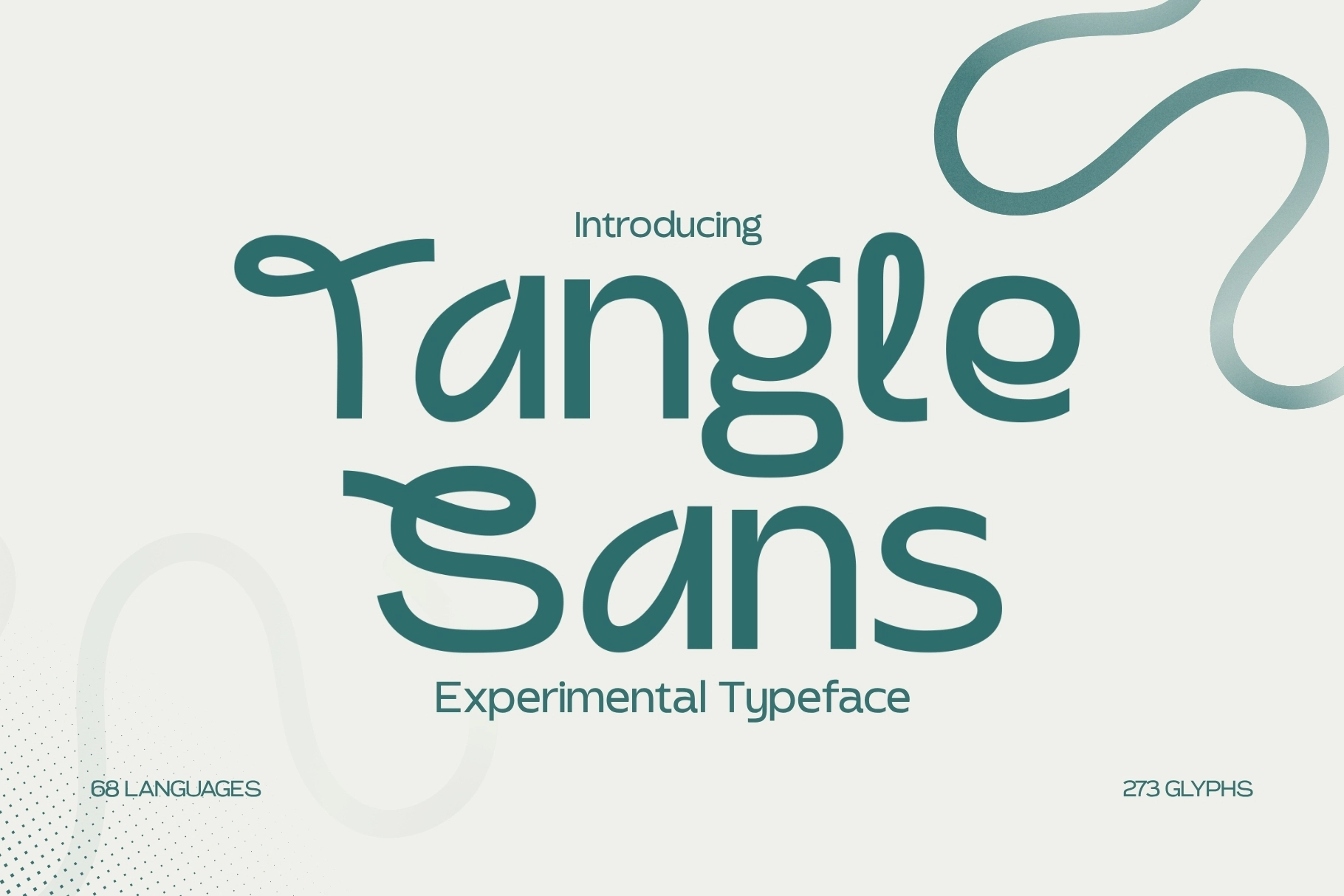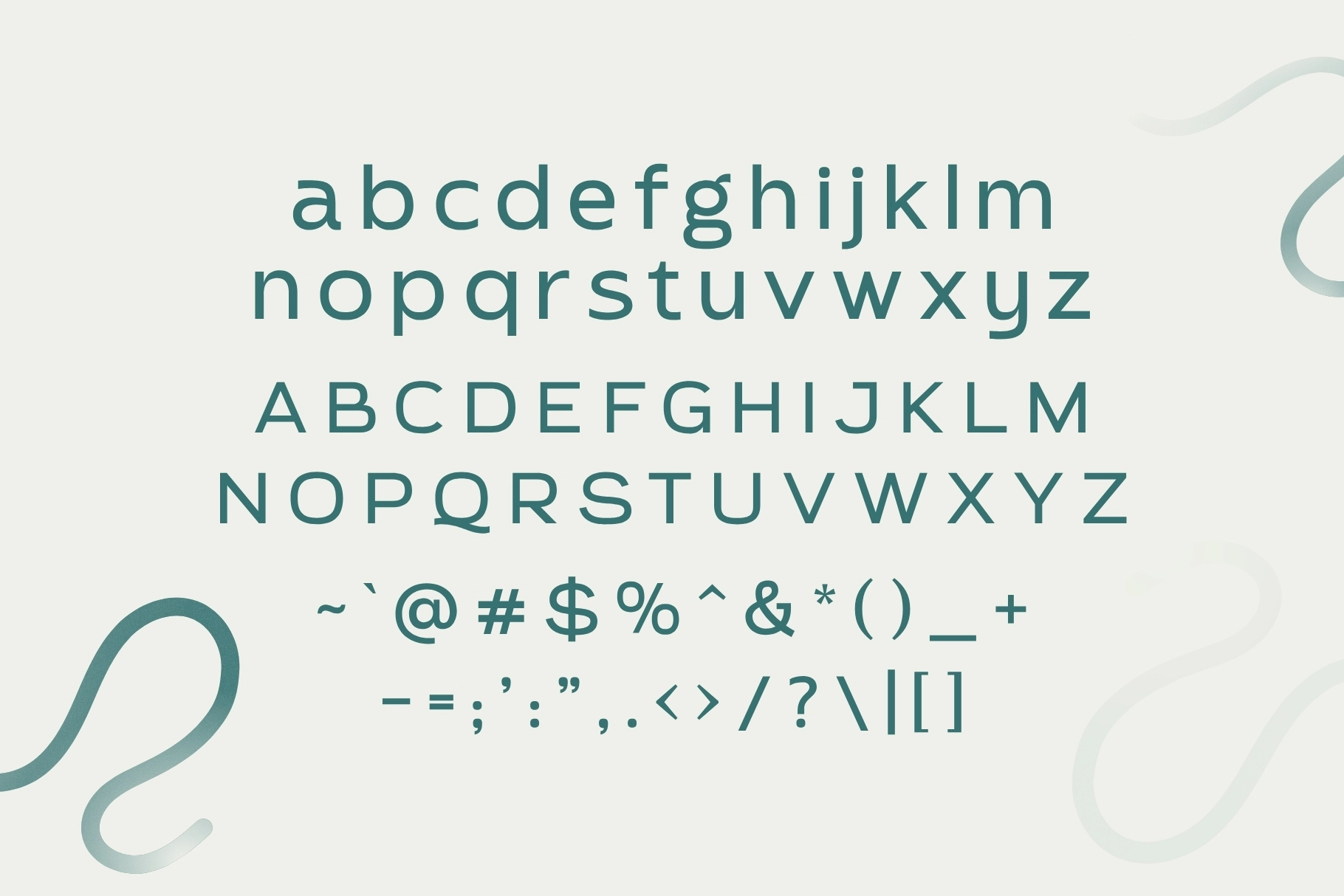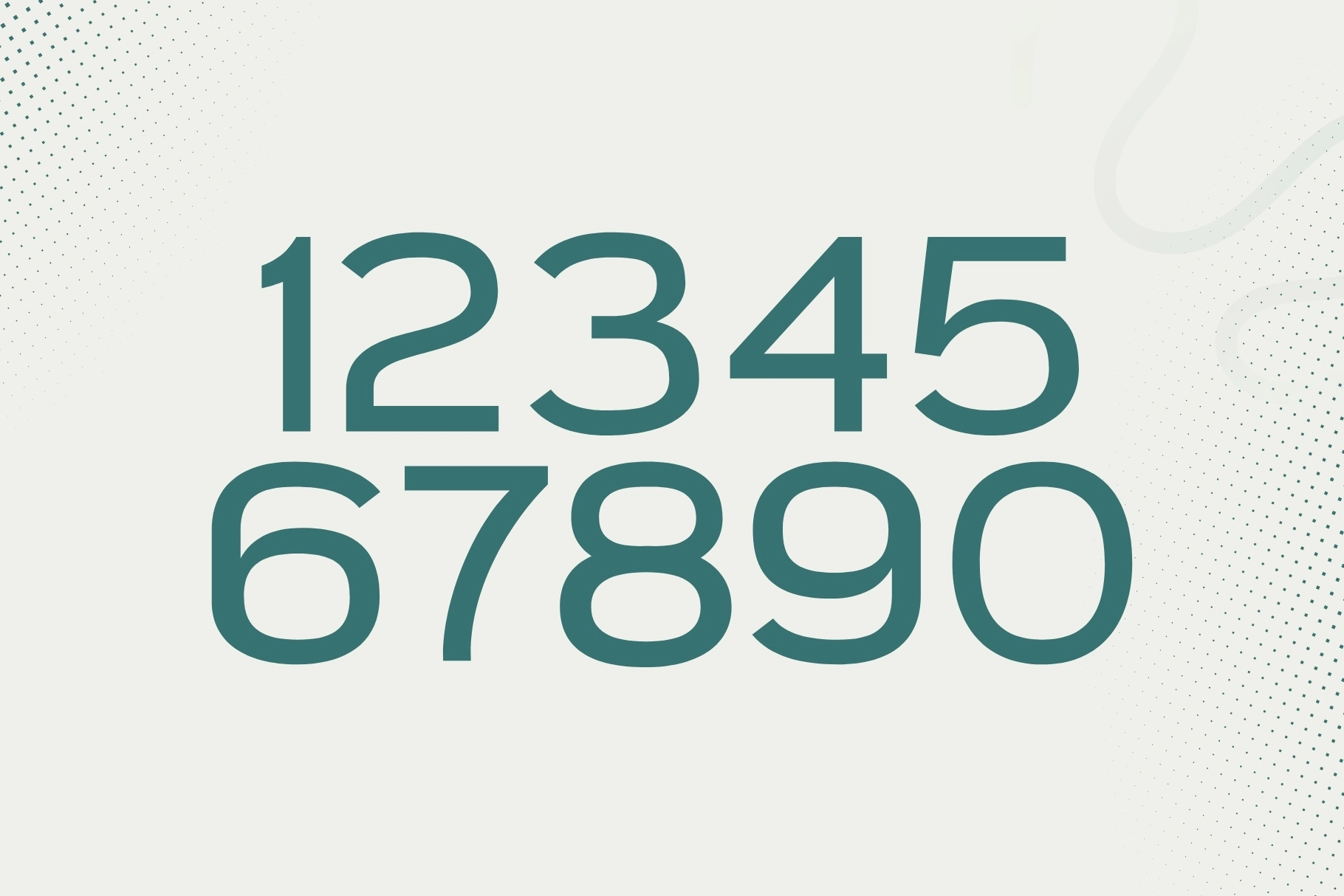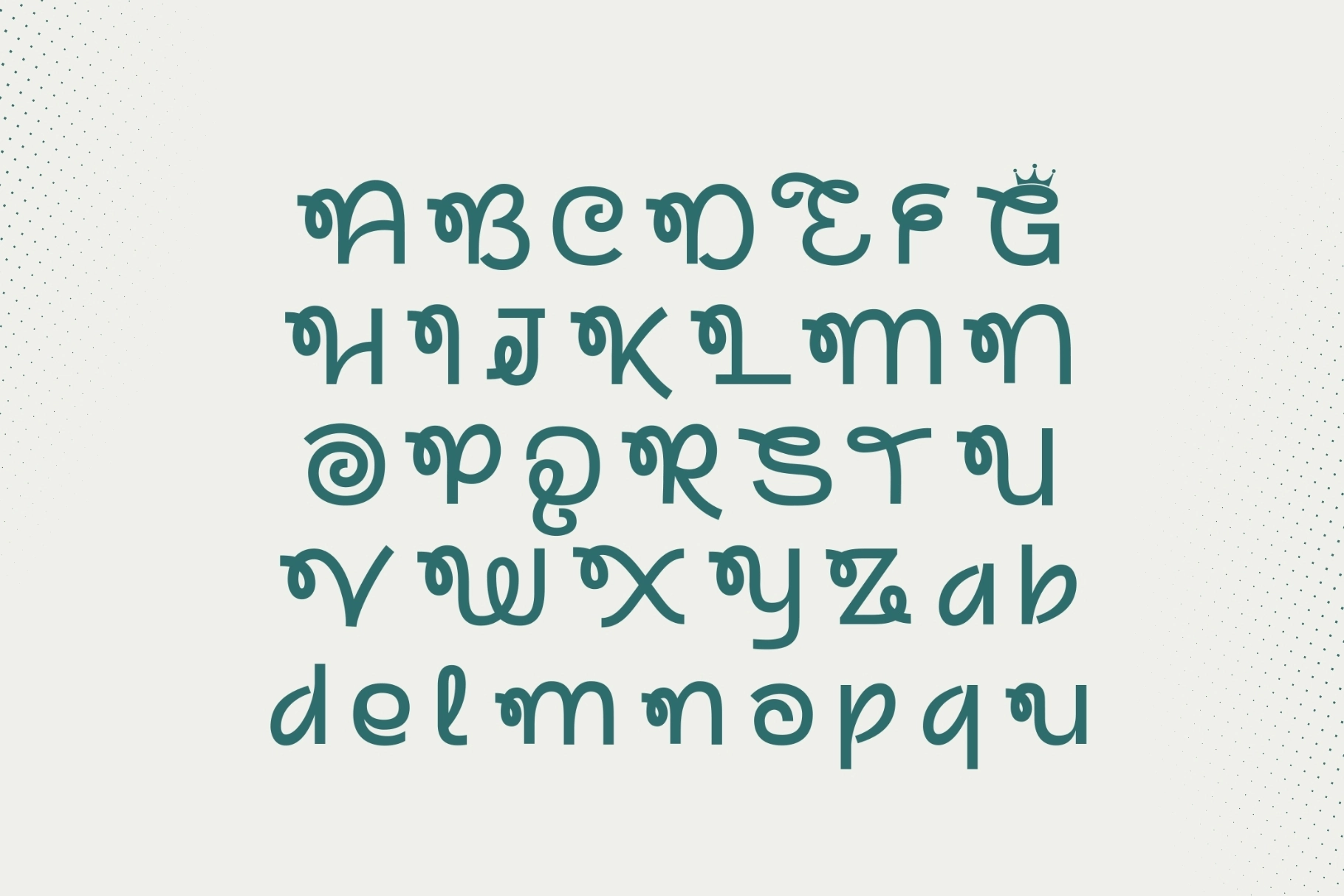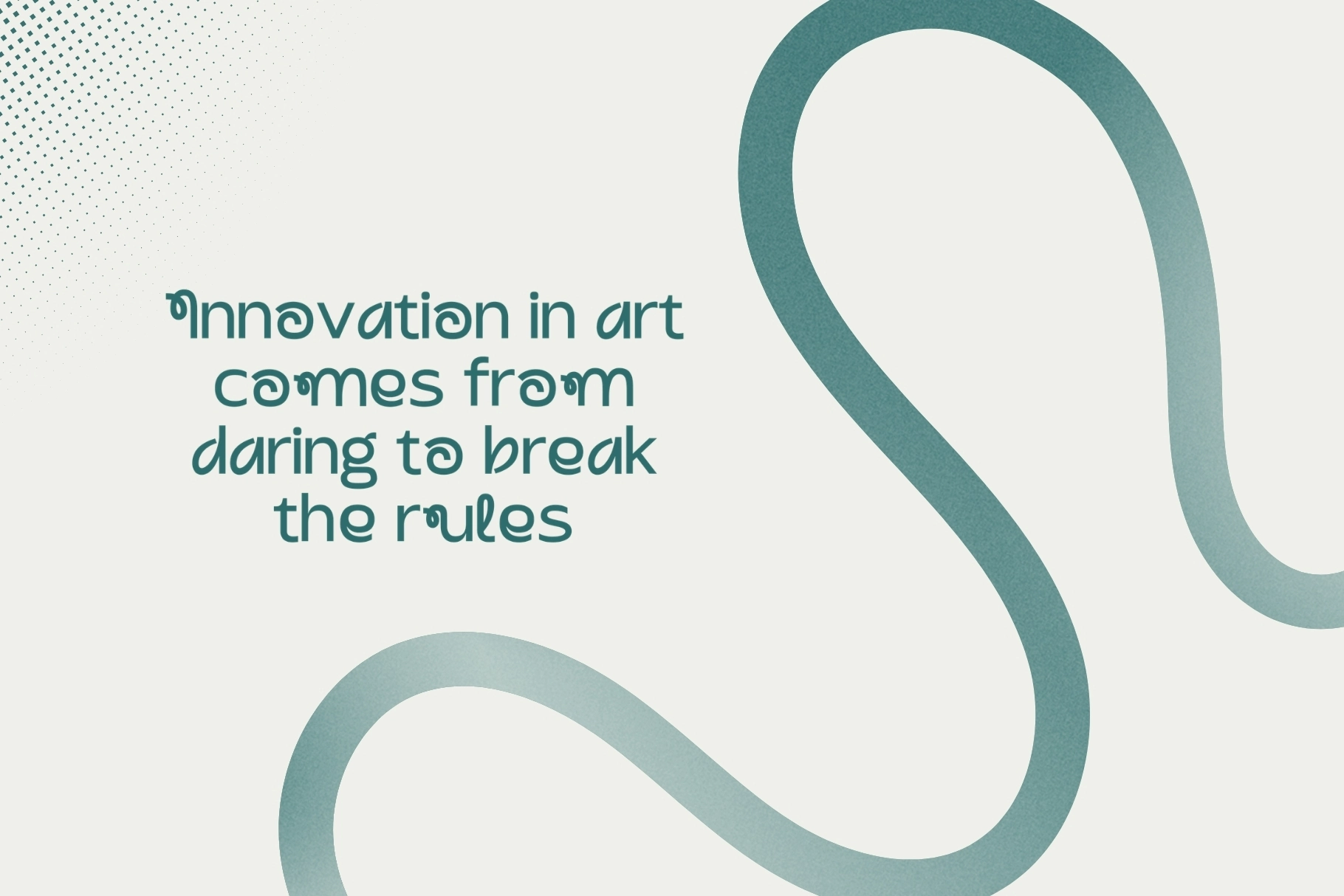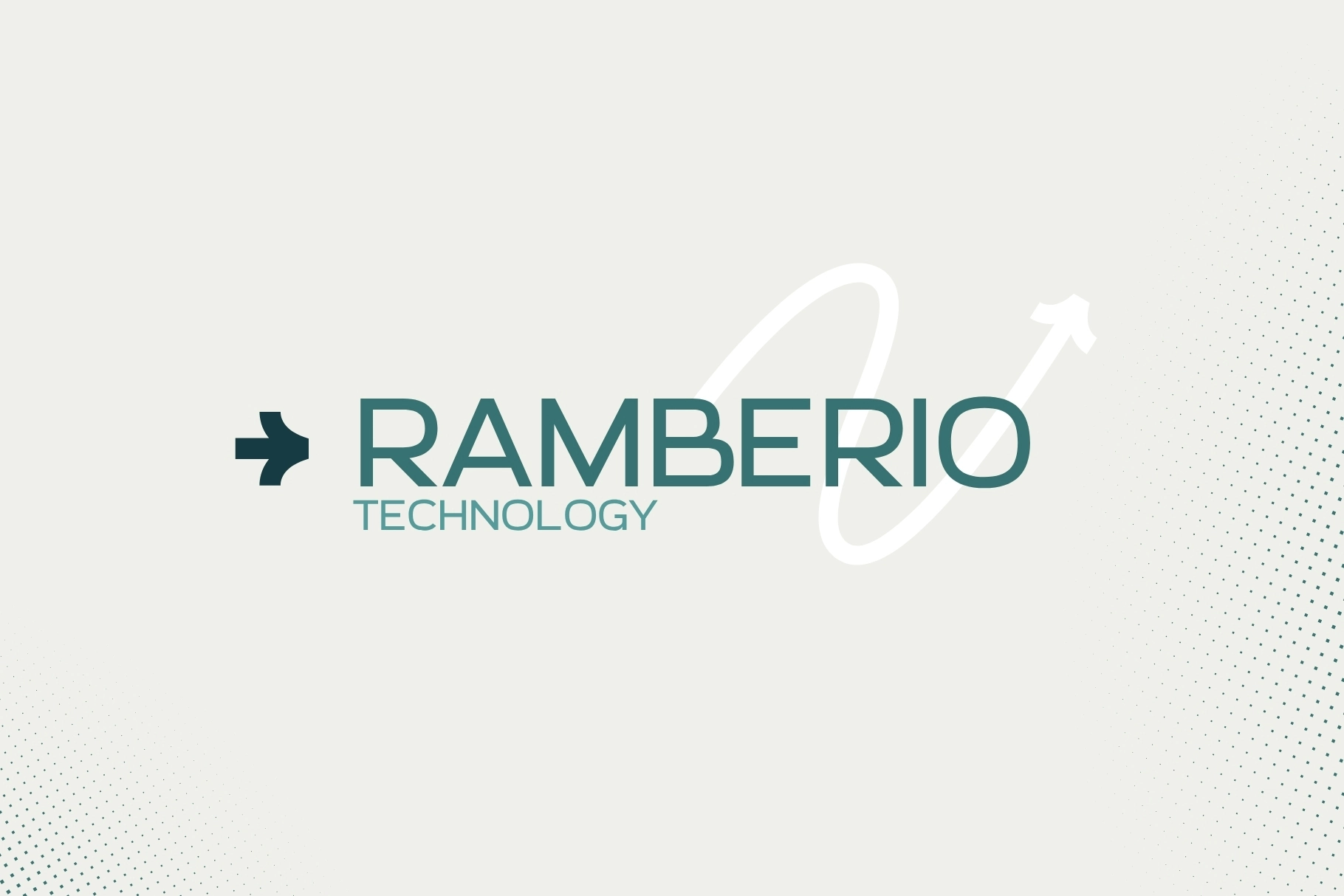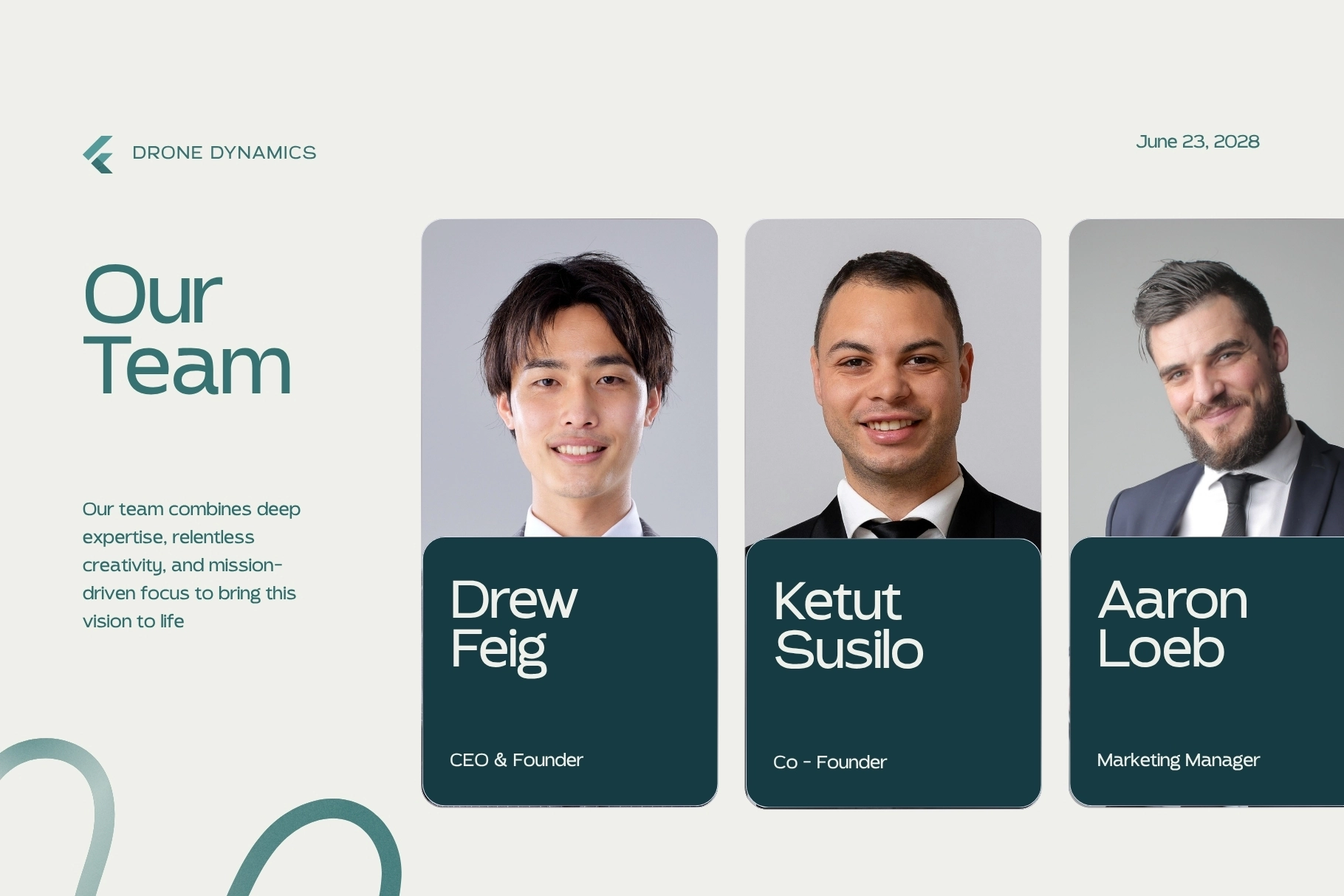
Tangle Sans - Experimental Sans Serif Font
Tangle Sans, Experimental Sans Serif Font has the clean frame of a geometric sans recast through the eccentric grace of Art Nouveau poster lettering and experimental editorial typography, with looping alternates that give its rhythm a sly, offbeat wit. It suits branding systems, logos, posters, book covers, invitations, packaging, and magazine layouts, especially in projects that want crisp structure with a playful, artsy edge.
• Uppercase & lowercase letters
• Numbers & punctuation
• 273 glyphs
• 39 stylistic alternates